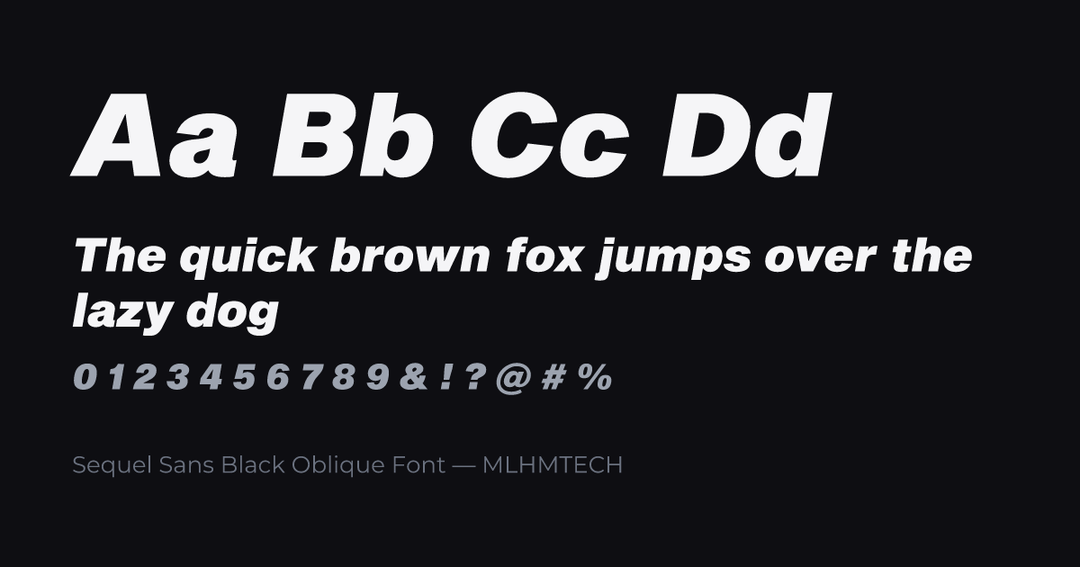
Sequel Sans Black Oblique Font
Sequel Sans Black Oblique is a high-contrast, bold sans-serif font with an oblique slant, ideal for impactful headlines and modern branding.
Sequel Sans Black Oblique is a striking display typeface that combines geometric precision with a confident, forward-leaning posture. Its heavy weight and oblique angle make it perfect for grabbing attention in posters, logos, and editorial designs.
This font is part of the Sequel Sans family, known for its clean lines and contemporary feel. The Black Oblique variant adds a dynamic edge, making it suitable for projects that require a sense of motion or urgency.
Whether you're designing a bold headline, a memorable logo, or a promotional material, Sequel Sans Black Oblique delivers a powerful visual statement. Its versatility ensures it works well in both print and digital media.